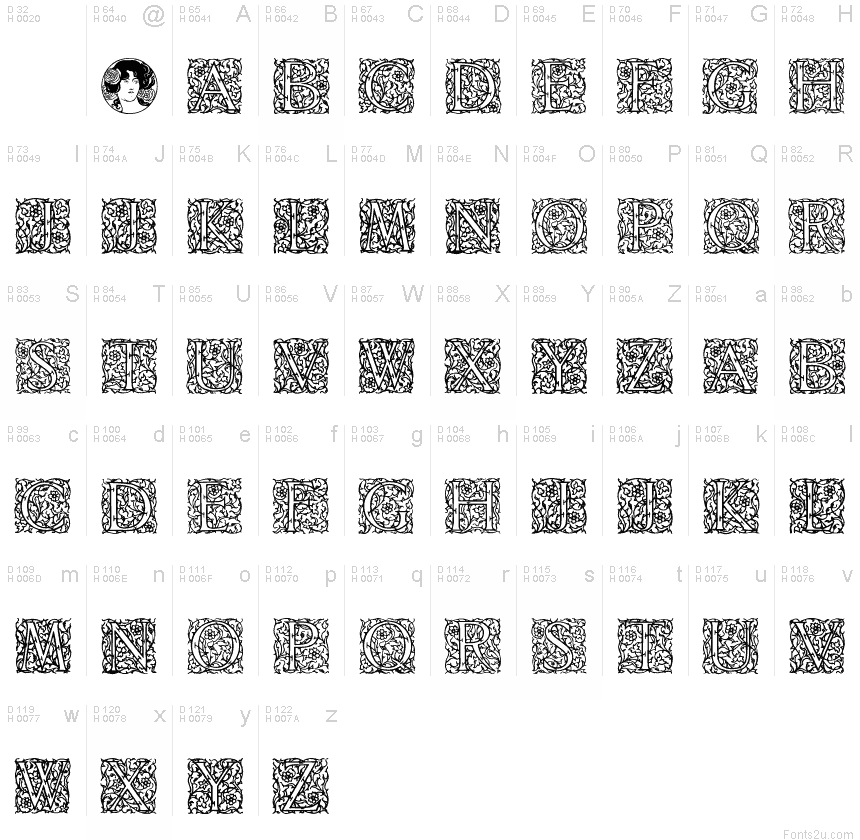
Arabesque Initialen
Arabesque Initialen font by Dieter Steffmann of Typographer Mediengestaltung is a free decorative display typeface that turns every letter into an ornamental miniature. Each character sits inside a tightly woven frame of vines, curls, and tiny flourishes, like an illuminated manuscript compressed into a crisp, square tile. The texture feels richly engraved rather than drawn, giving headlines and initials a sense of weight and ceremony without needing extra graphics.
Using Arabesque Initialen, your single letter can carry an entire layout-this free font shines on book covers, wedding invitations, certificates, vintage packaging, and ornate logo marks. It works beautifully as drop caps at large sizes, with a simple sans serif or calm serif handling the supporting text. Keep it monochrome for a classic, engraved feel, or invert it on dark backgrounds when you want those intricate white lines to glow.